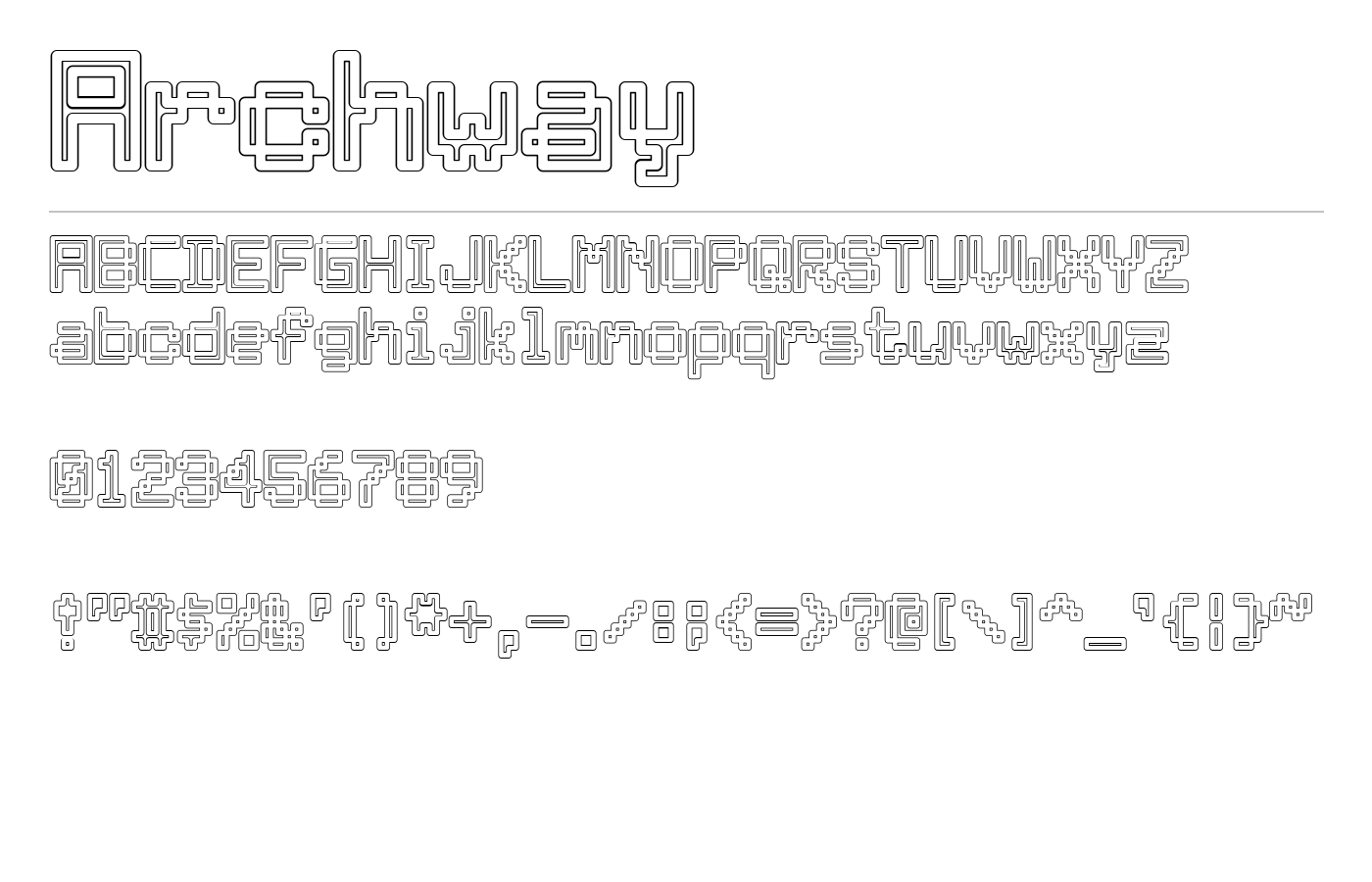
Archway is a futuristic, geometric sans serif font characterized by its outlined, layered structure that gives a sense of depth and complexity. Its regular weight and monoline strokes combine with a structured, modular design to create a modern and tech-inspired aesthetic, making it ideal for digital branding, tech-focused logos, or eye-catching headlines where a distinctive, cutting-edge look is desired.
Archway Font